Fonts change how people feel about your site. A serious/”grand” font can make it dull. A warm font can make it inviting. That’s the power of type.
Understanding what custom fonts are (and why you may want to use them) 💡
The term ‘custom fonts’ is pretty broad. Since we’re talking about WordPress, however, we’ll use it to refer to any typeface the content management system (CMS) doesn’t include out of the box. There are thousands of custom font options that you can find online, and in general terms, nothing is stopping you from using any of them.
Keep in mind, though, the fonts you choose shouldn’t just be aesthetically pleasing. They should also meet some additional criteria:
- A font is only as good as it is easy to read.
- Every font you use has to fit in with the general style of your site.
- A font must look good both on large and small screens.
- Your font should be part of your branding. Over time, users might come to associate them with your site and business.
Where you can find custom fonts for your WordPress site
If you do a quick search for ‘free fonts’ using any search engine right now, you’ll find thousands of pages with broad selections to pick from:
The problem, however, is that a lot of those ‘free font’ websites don’t tend to have high standards when it comes to curating their selections. You may be able to find some jewels, but in many cases, they’ll also be full of fonts you wouldn’t be caught dead using even if you were working on a 2005 MySpace profile.
Fortunately, there are a lot of excellent font repositories that do go to great lengths to curate their collections. One of our favorites is Google Fonts, which offers over 1,800 font families in several languages, all of them free:
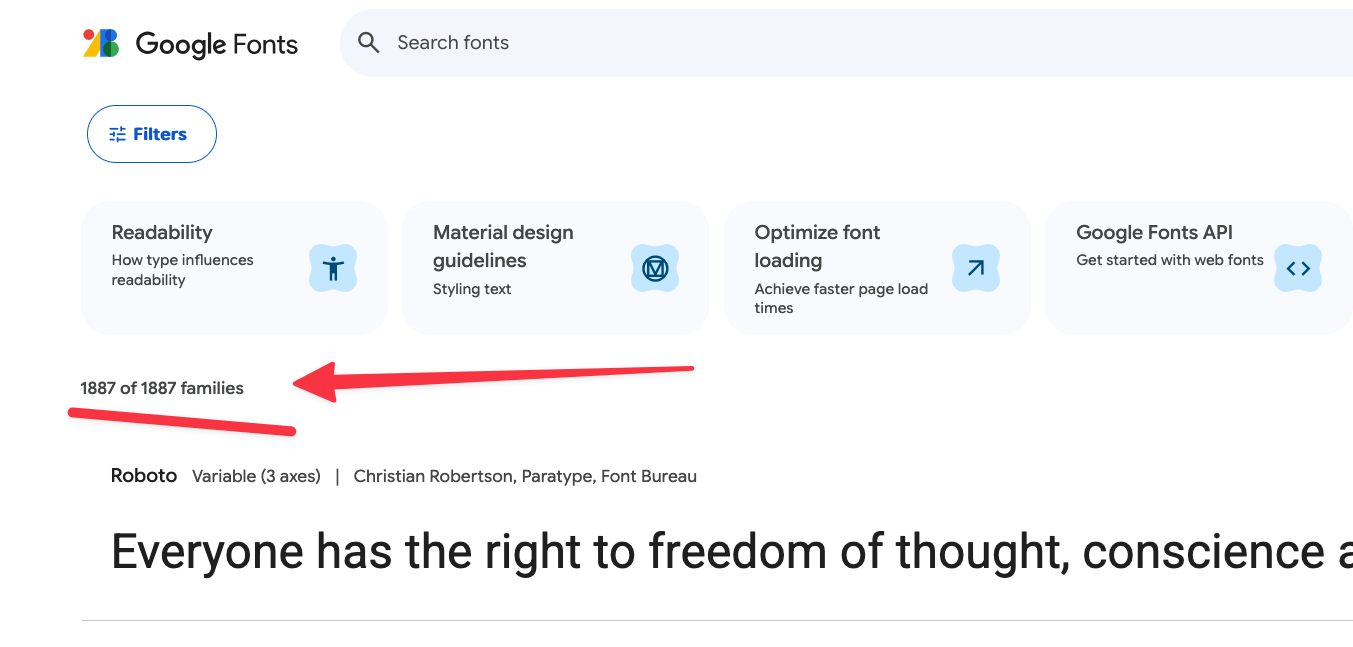
Another excellent option is Adobe Fonts (formerly Typekit), which provides over 5,000 font families to choose from. Keep in mind, though – to access them you’ll need a Creative Cloud subscription (any tier will do). If you’re an Adobe user, that means you already have access to the entire font collection:
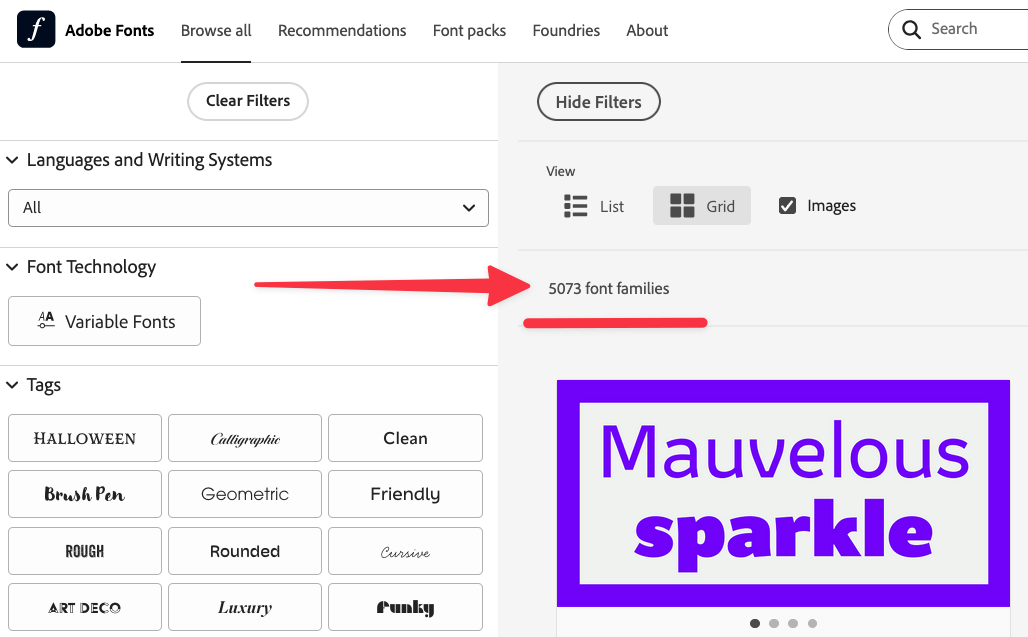
These two sources alone will give you plenty of options to choose from!
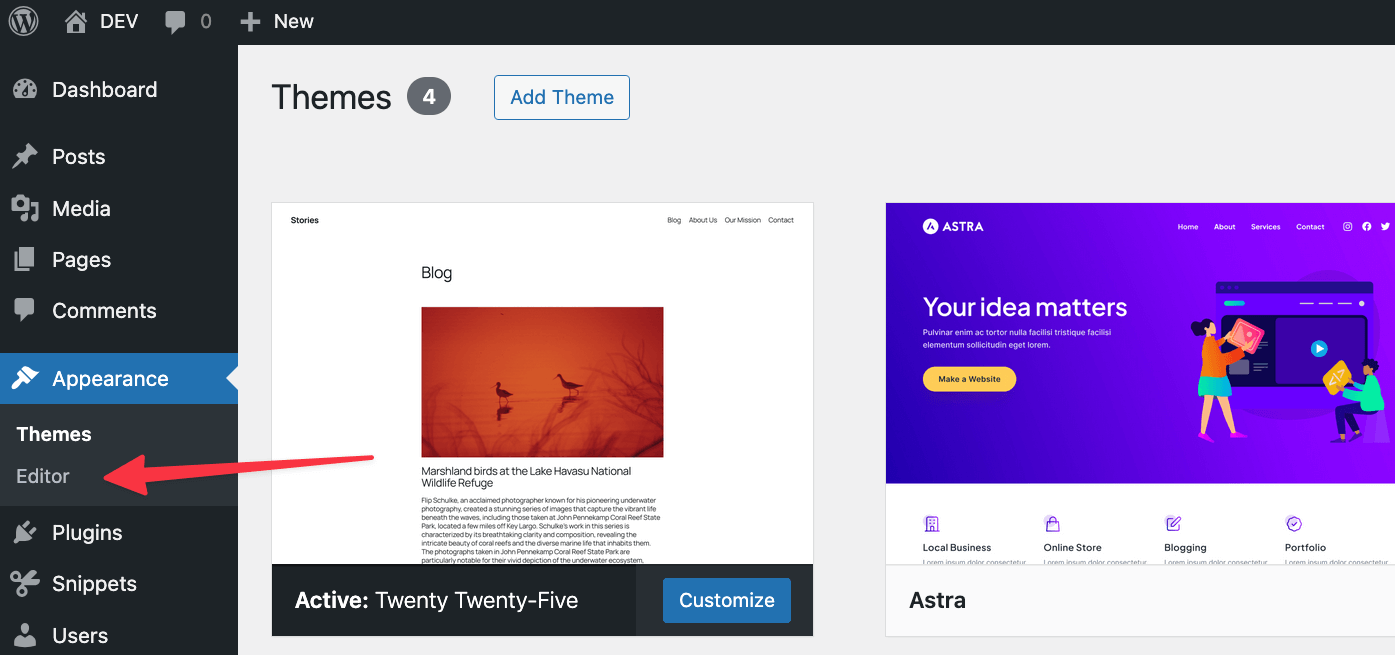
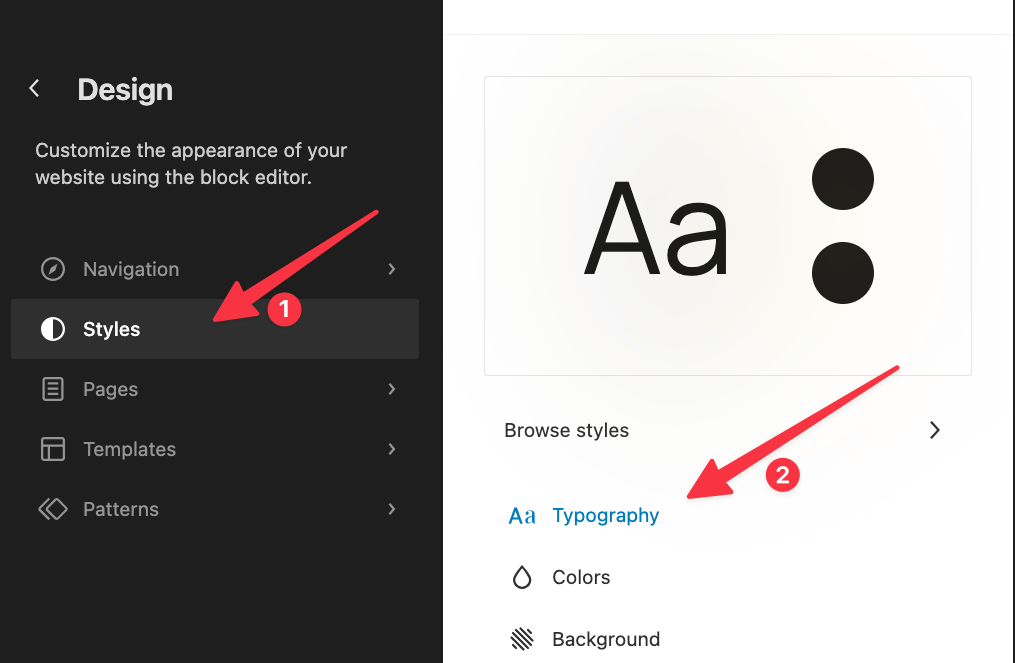
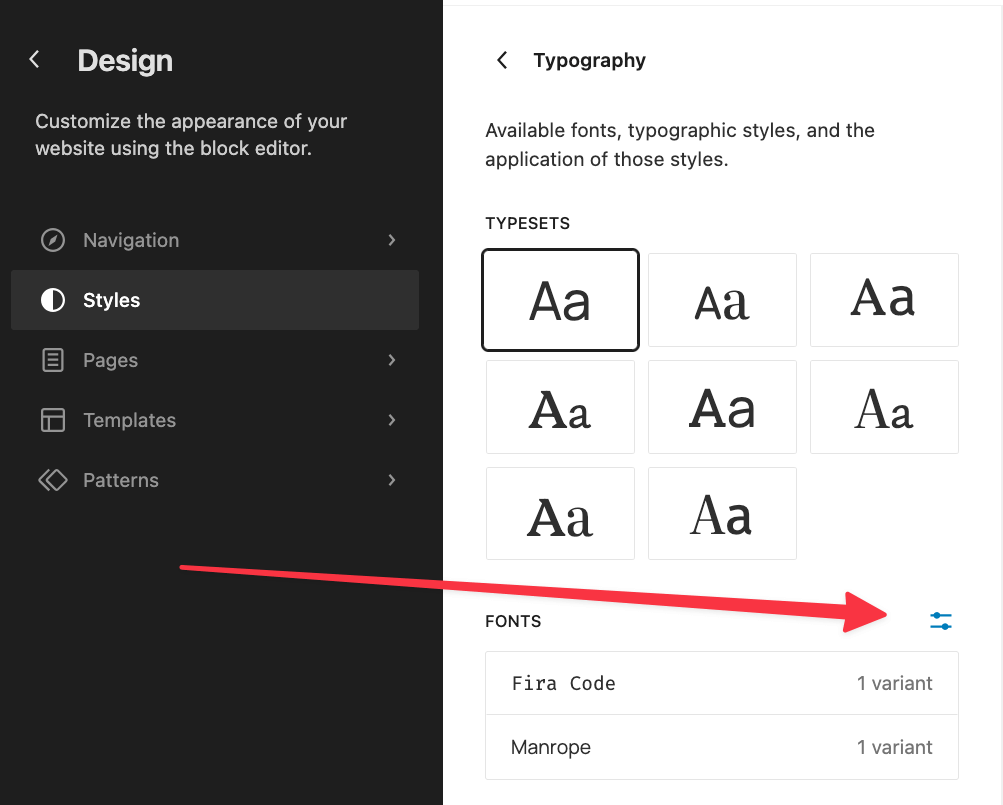
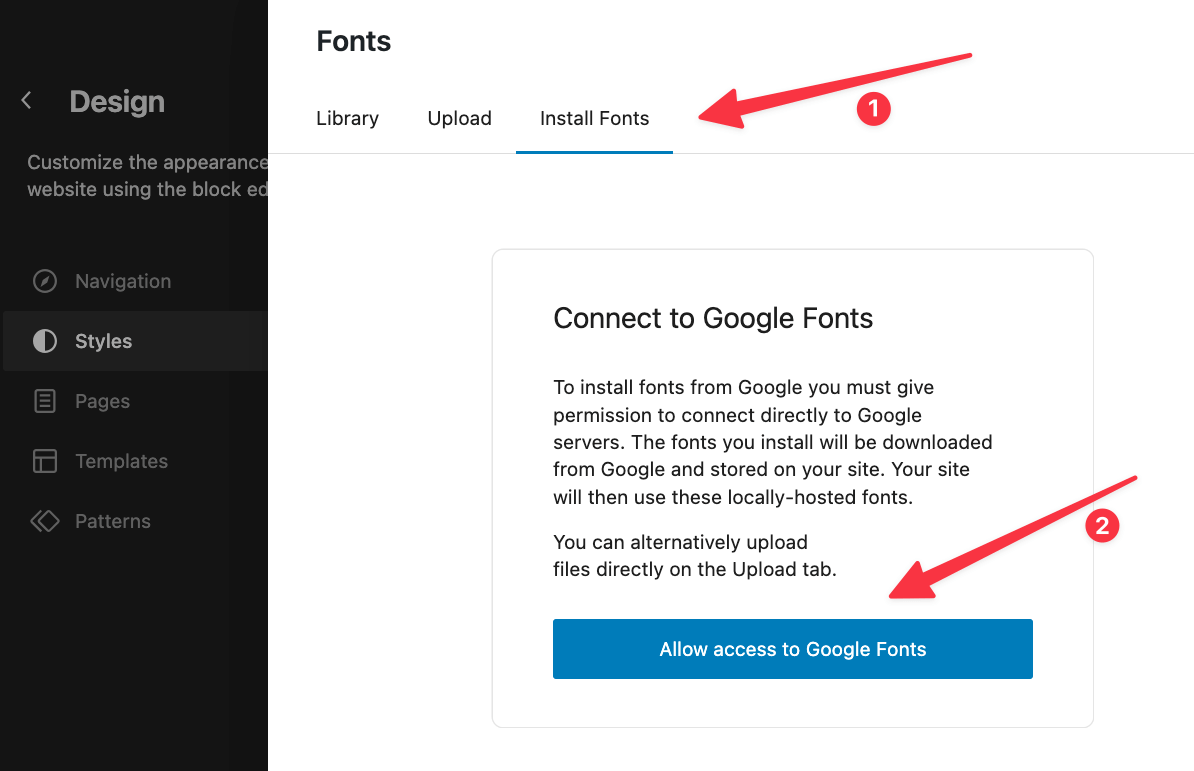
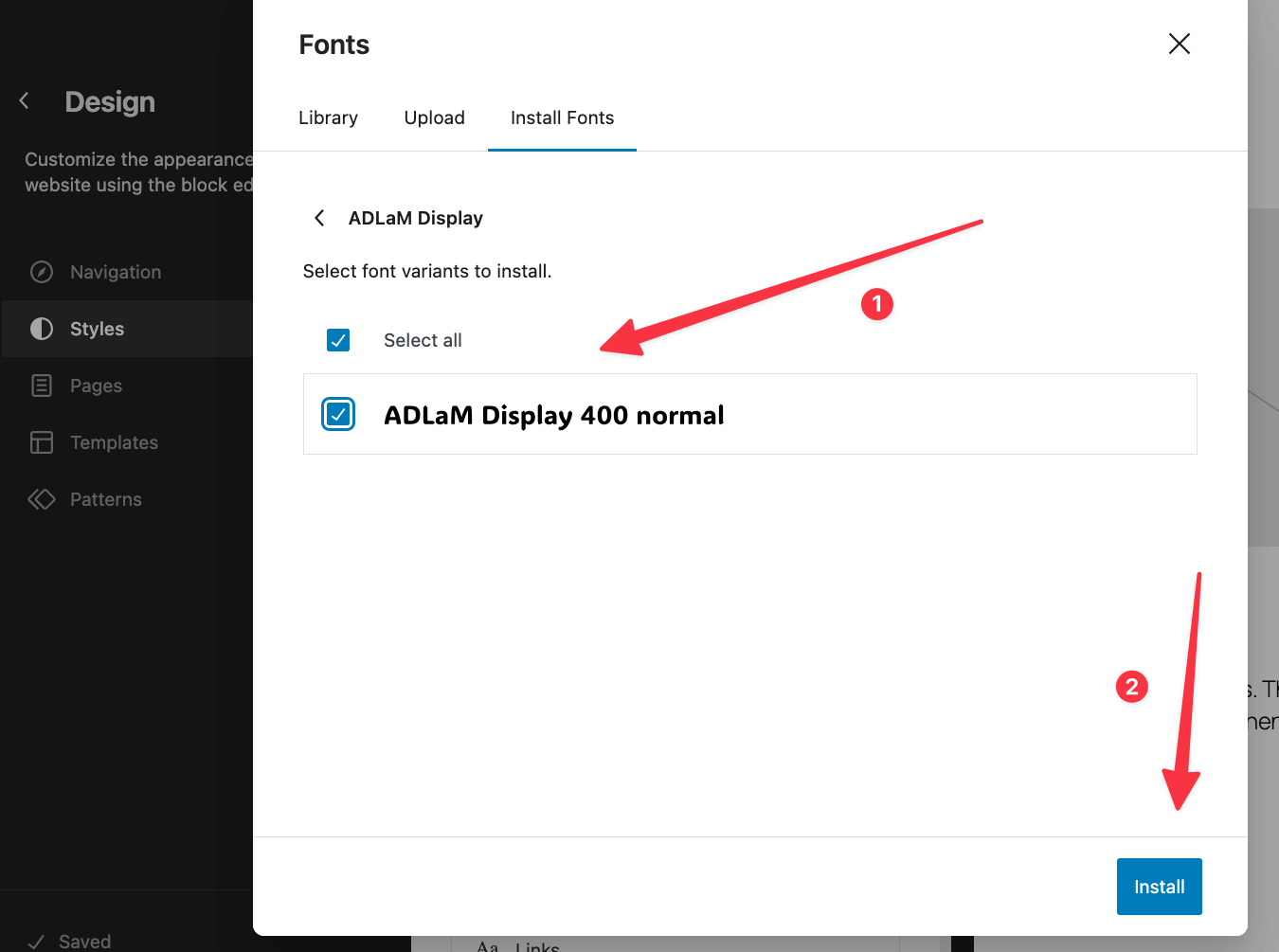
Okay, so the font has now been installed – you can now use it for whichever element of your page design.
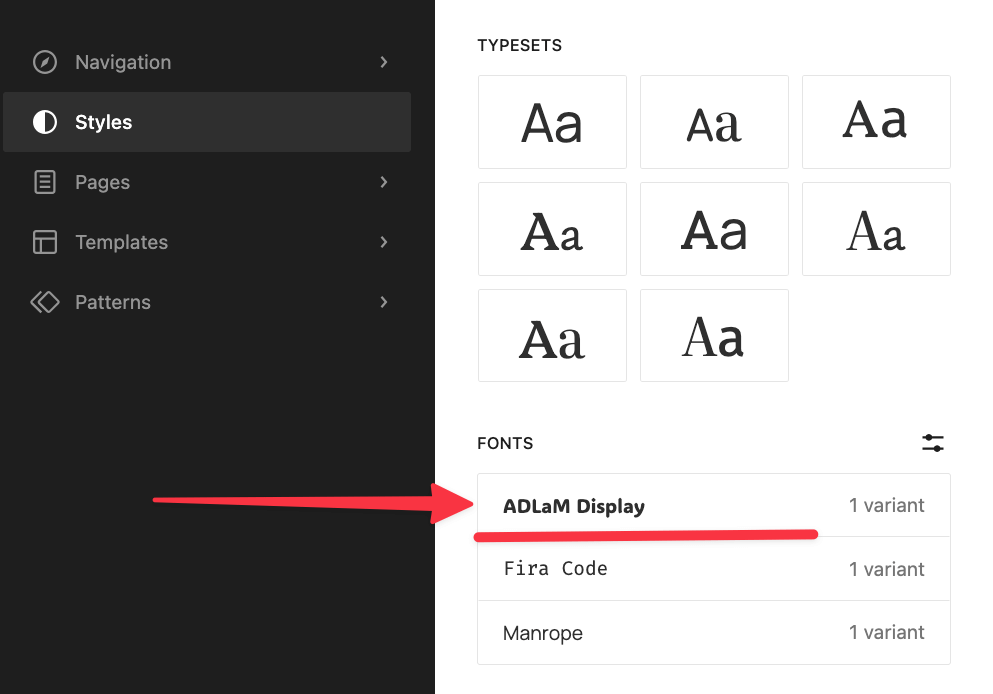
2. Fetch fonts from Google by hand
If you’re not using a block theme, and you don’t want to upload font files to your website manually, you can always ‘import’ them from third-party repositories.
Google Fonts is the most known such repository, so we’ll use that one.
Once you find a font you like, click on Get Font at the top of the screen:
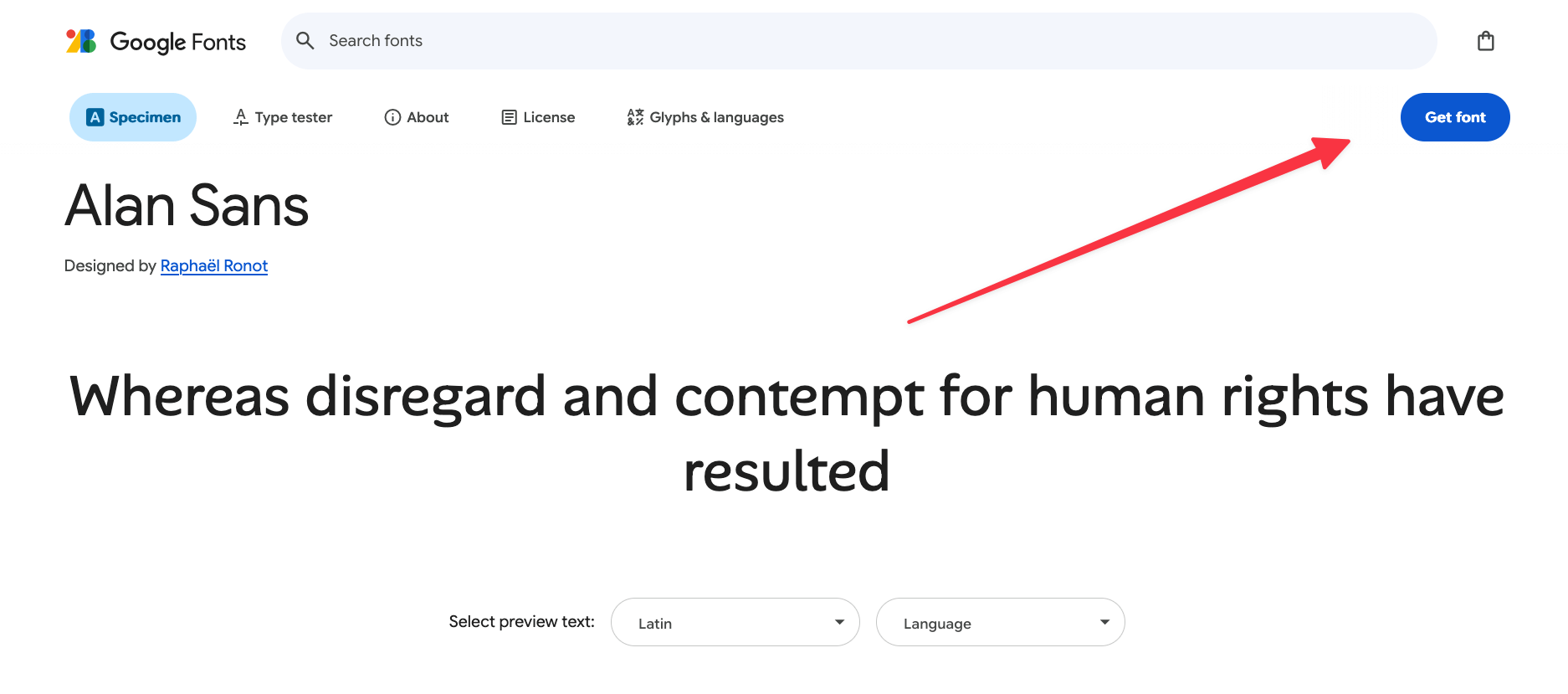
When you do that, another screen will appear, where you’ll need to click Get embed code. That will open up all of the embed code options:
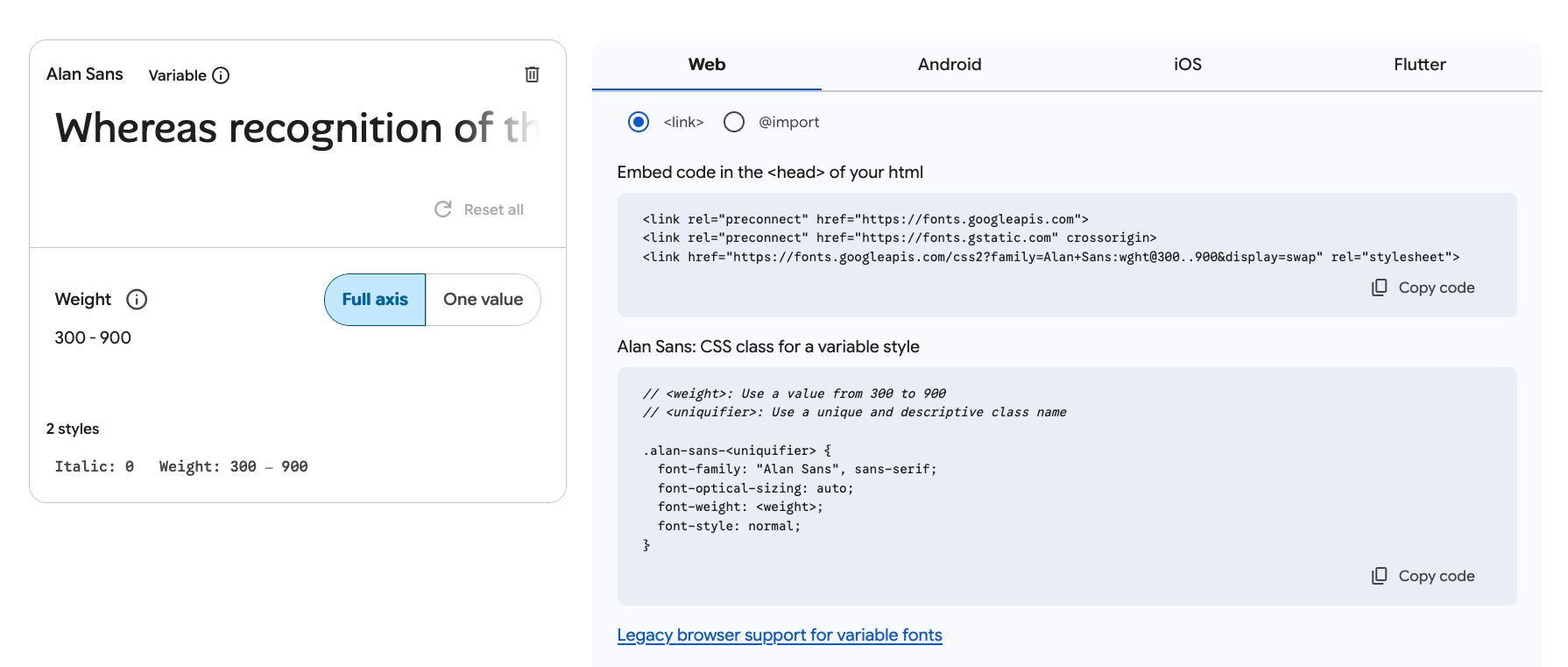
This is the code that’s going to fetch the font from Google directly to your site.
You have a couple of options to add this code to your WordPress site.
- If you have access to your theme’s header.php file and you’re not afraid to edit it, you can add that code snippet between the tags of your header.
- If you’d rather not mess with your theme’s files by hand, you can use a small plugin like Head & Footer Code and add the code through it. Just place it in the HEAD Code section:
That line of code is telling WordPress to import the font you selected from Google Fonts.
The last thing to do is to actually assign it to your paragraphs, headings, or whatever else you wish.